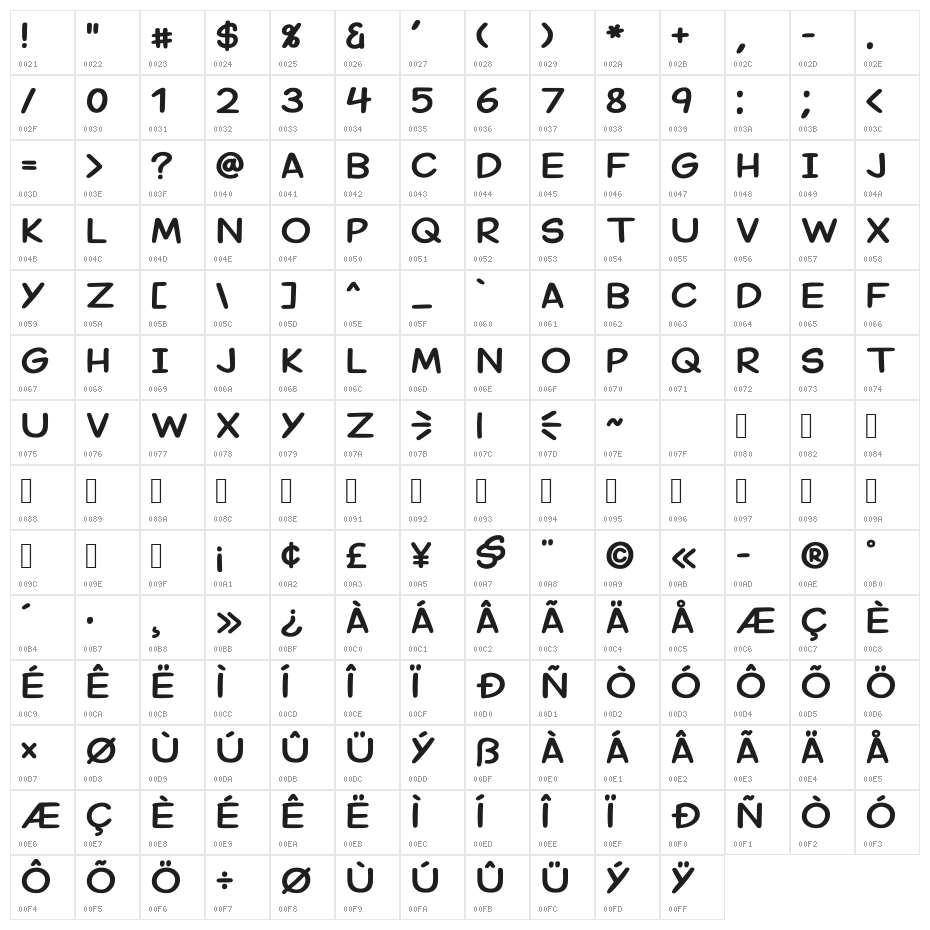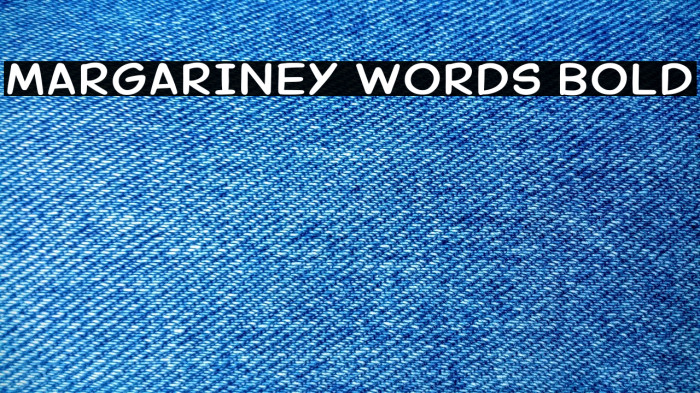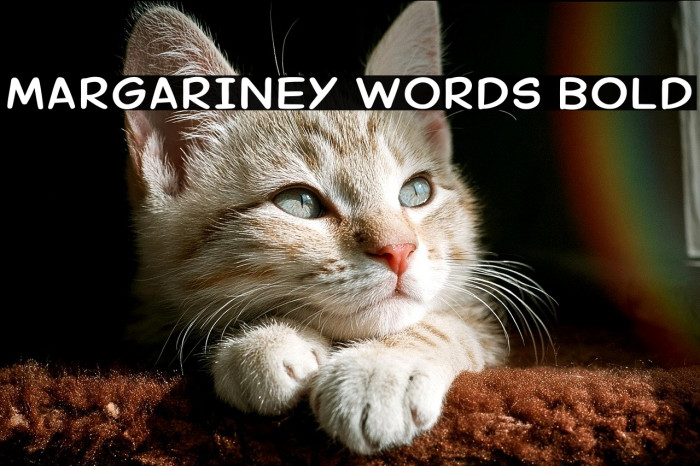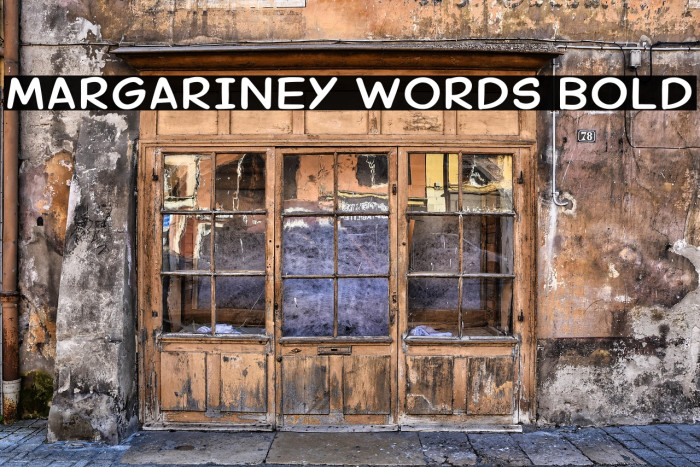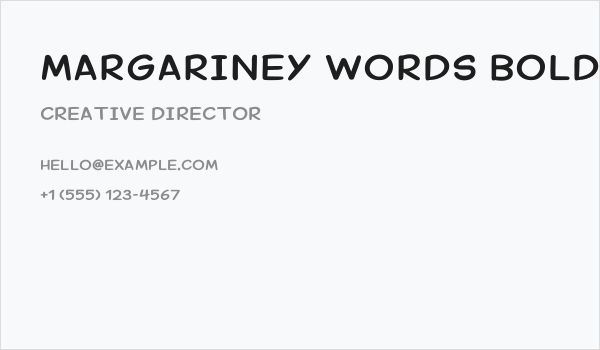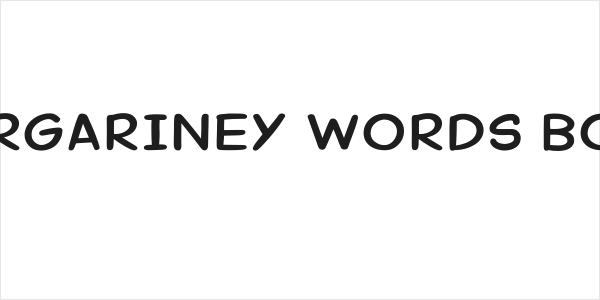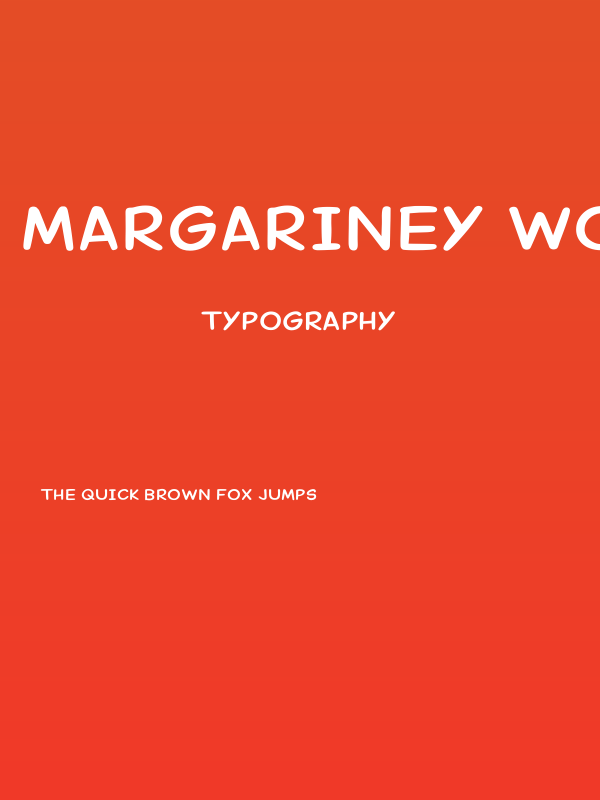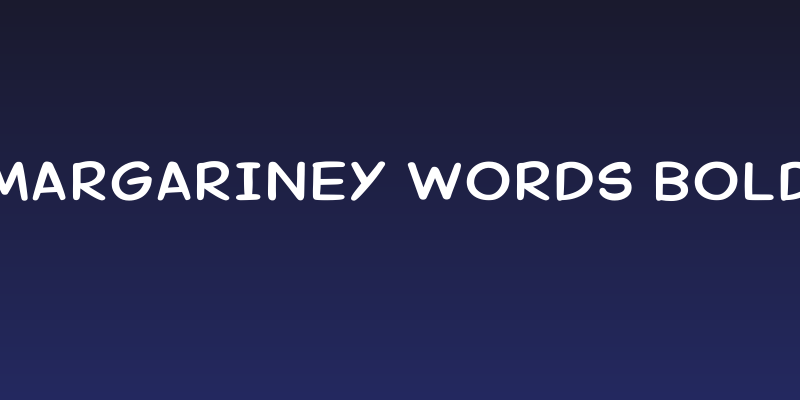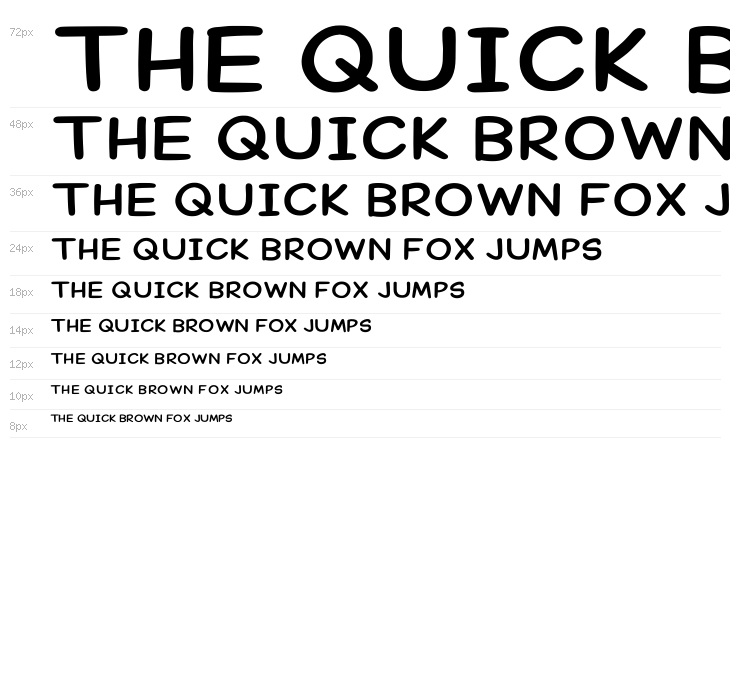
Margariney Words Bold Font
Margariney Words Bold Description
This font features a playful and rounded style, characterized by its bold and smooth letterforms. Each character has a consistent thickness, contributing to a uniform appearance. The rounded edges and slightly informal design give it a friendly and approachable feel. The numerals and special characters maintain the same playful aesthetic, making it suitable for creative and casual applications. Its boldness ensures readability while the rounded shapes add a touch of whimsy, making it ideal for projects that require a fun and engaging look.
| Overall Style | Playful, Casual |
| Proposed Projects | Ideal for children's books, playful branding, casual invitations, and creative posters. |